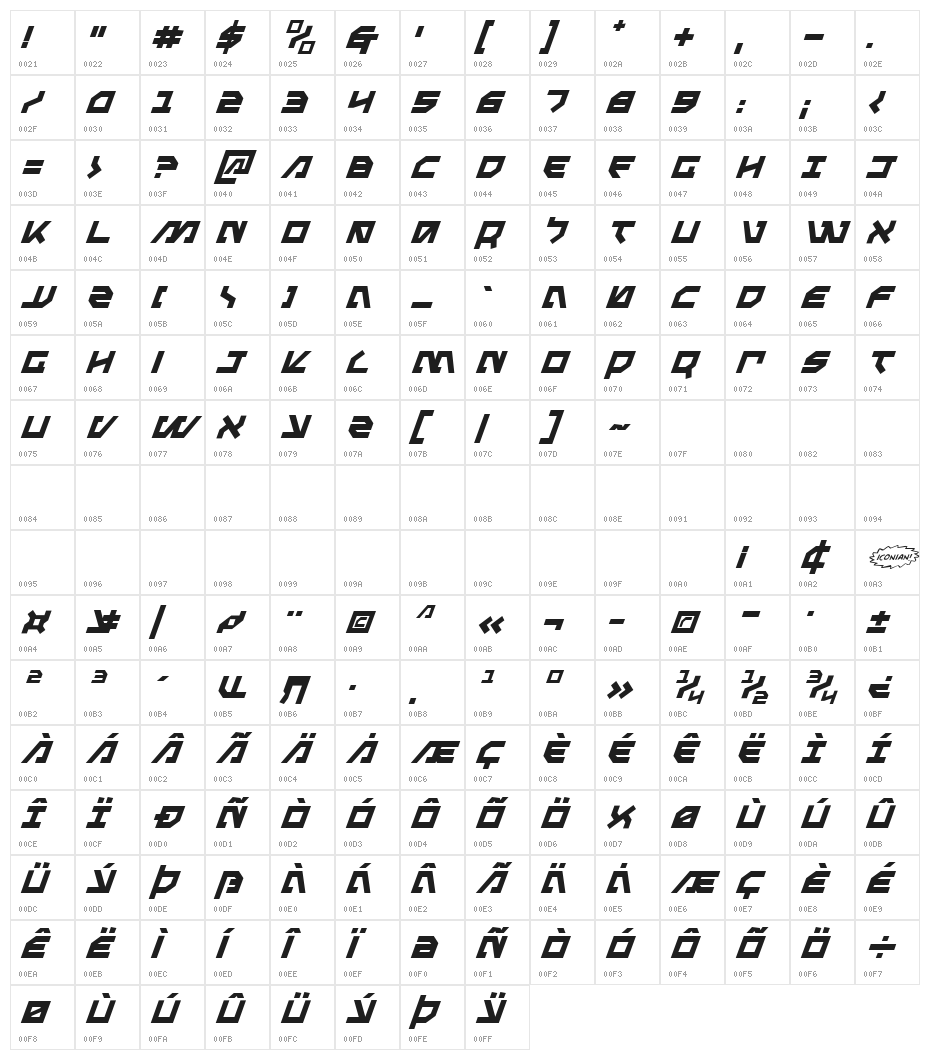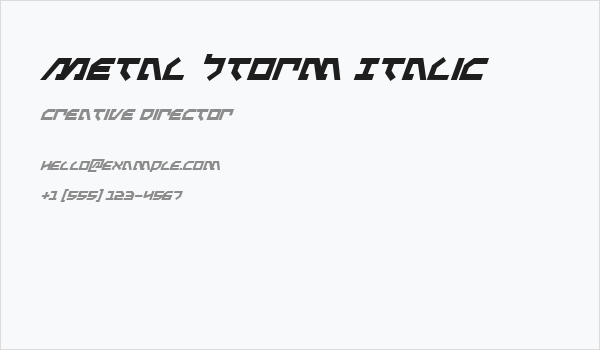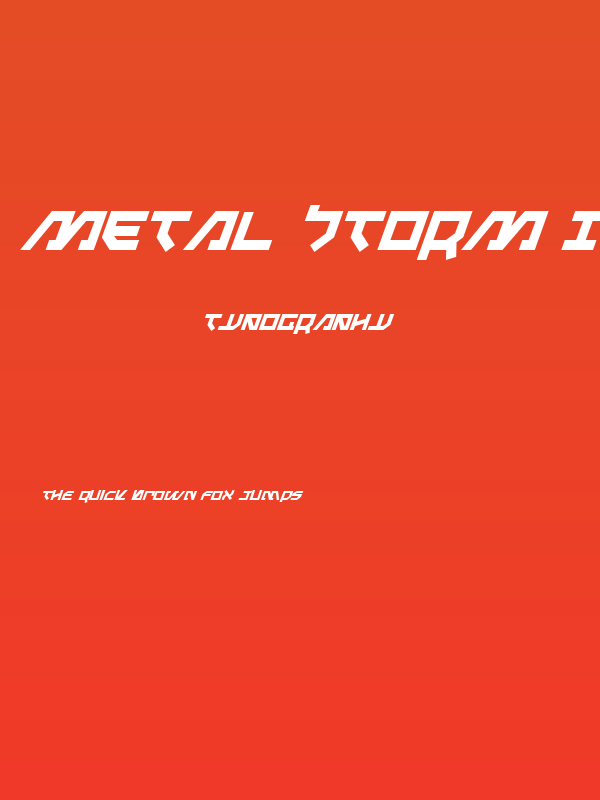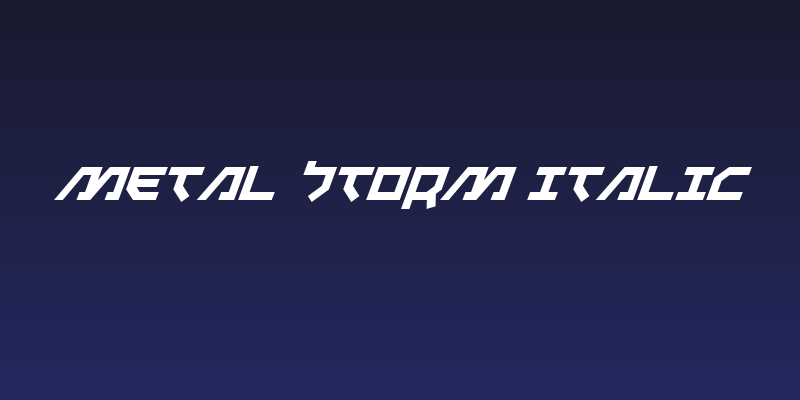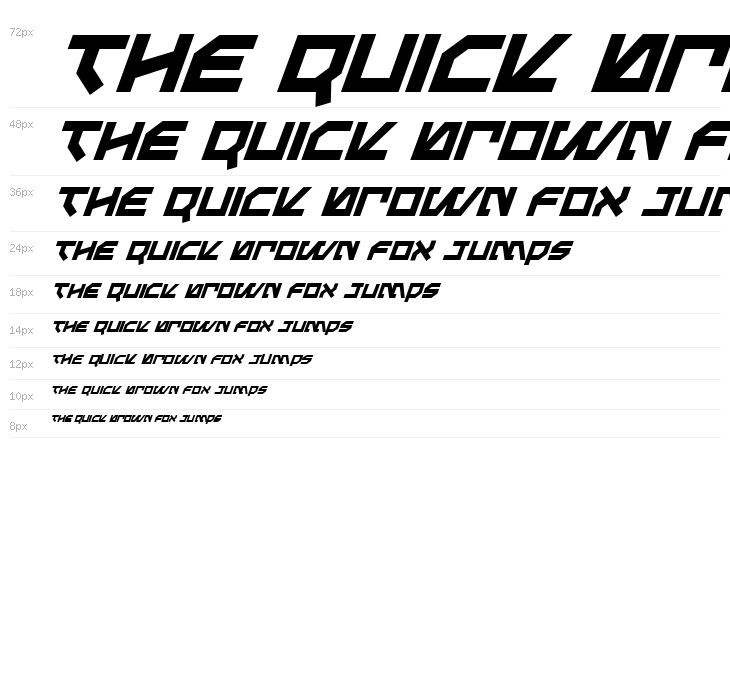
Metal Storm Italic Font
Metal Storm Italic Description
This font features a bold, angular design with a futuristic and aggressive aesthetic. The characters are italicized, giving them a dynamic and forward-leaning appearance. The sharp edges and geometric shapes convey a sense of speed and modernity, making it ideal for projects that require a strong visual impact. The uppercase and lowercase letters maintain a consistent style, while the numerals and special characters complement the overall design. This font is well-suited for use in technology-related themes, gaming, or any project that seeks to convey a sense of innovation and cutting-edge style.
| Proposed Projects | Ideal for technology branding, gaming titles, sci-fi posters, and modern advertising. |